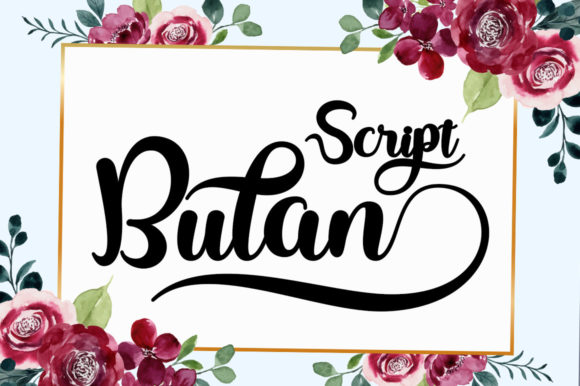
Welcome to the realm of Bulan Font - where calligraphy meets elegance in perfect harmony. This script font, brought to you by Ahmad Type, is a masterpiece of digital artistry, meticulously crafted to captivate and inspire. Bulan Font is not merely a collection of letters; it is a gateway to a world of creativity, imagination, and self-expression.
Bulan Font embodies the essence of fluidity, with each stroke flowing seamlessly into the next, creating a symphony of visual grace. Its characters possess a captivating rhythm, a delicate balance between boldness and finesse. With Bulan Font, your designs will transcend the ordinary and enter the realm of the extraordinary.
Let Bulan Font be your muse, your trusted companion in crafting stunning calling cards that leave a lasting impression. Its elegant curves and graceful lines will add a touch of sophistication and charm to your creations, making them stand out from the mundane. Bulan Font is the perfect choice for those who seek to convey a sense of warmth, authenticity, and artistic flair.
Imagine your calling cards adorned with the enchanting allure of Bulan Font. The eyes of your recipients will dance across the page, captivated by the intricate details and harmonious flow of each letter. They will sense the passion and care poured into every design, and appreciate the thoughtfulness behind your choice of font.
Bulan Font is more than just a font; it is an expression of your individuality, a reflection of your unique style and vision. Embrace its beauty, unleash your creativity, and watch as your designs flourish with an unparalleled elegance that speaks volumes. Bulan Font awaits you, ready to transform your calling cards into masterpieces of visual storytelling.
Bulan Font is not just a font; it is an investment in your creative future. Its versatility extends beyond calling cards, making it a perfect choice for a wide range of design projects. Whether you're crafting logos, branding materials, social media graphics, or wedding invitations, Bulan Font will add a touch of magic to your creations.
With Bulan Font, you'll join a community of designers, artists, and entrepreneurs who value beauty, originality, and the power of self-expression. As you explore the endless possibilities of this remarkable font, you'll discover new depths of creativity and unlock your full potential as a visual storyteller.
So, embrace the enchanting allure of Bulan Font and embark on a journey of artistic exploration. Let its graceful strokes guide you as you create designs that captivate, inspire, and leave a lasting impression. Bulan Font is more than just a font - it is a catalyst for unleashing your creative brilliance.